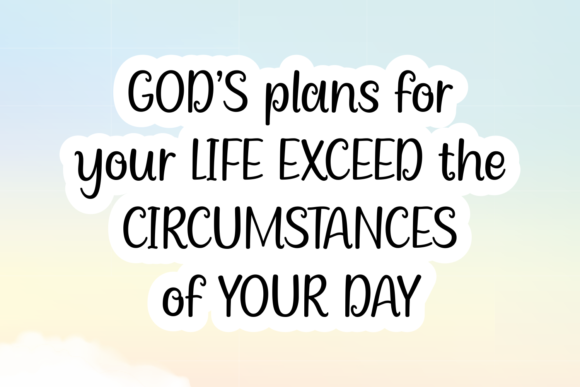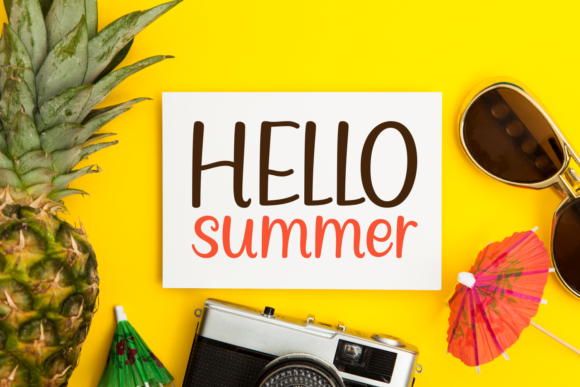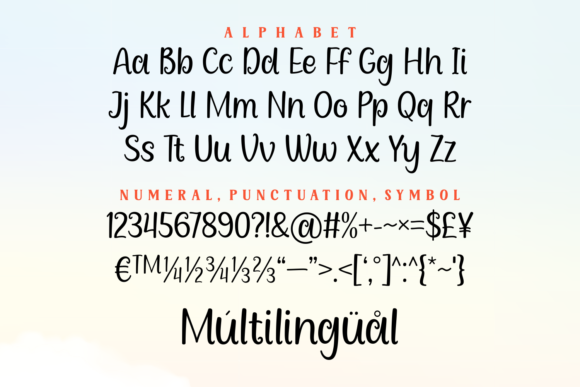
Tomorrow and Today Font
About Tomorrow and Today Font
If you’re in search of an elegant handwritten font, your quest ends here with “Tomorrow and Today.” This delightful handwritten font is a perfect choice for a variety of applications, including cards, quotes, books, articles, posters, branding, and art prints.
“Tomorrow and Today” combines elegance and a handwritten charm, making it versatile for both formal and creative projects. The font’s graceful strokes and stylish design contribute to its suitability for conveying a sense of sophistication and authenticity.
Whether you’re working on designing cards that require a touch of elegance, creating inspiring quotes for social media, or developing branding materials that demand a refined aesthetic, “Tomorrow and Today” is crafted to meet these diverse design needs.
The font’s versatility extends to different text-based projects, allowing it to complement various design elements. Its elegant yet handwritten appeal makes it a great choice for conveying a personal and stylish touch across a range of creative endeavors.
In summary, if you’re in need of an elegant handwritten font that suits cards, quotes, books, articles, posters, branding, or art prints, “Tomorrow and Today” presents itself as a fitting solution. Consider incorporating this lovely font into your next design project to add a touch of elegance and sophistication while maintaining the warmth of handwritten text.